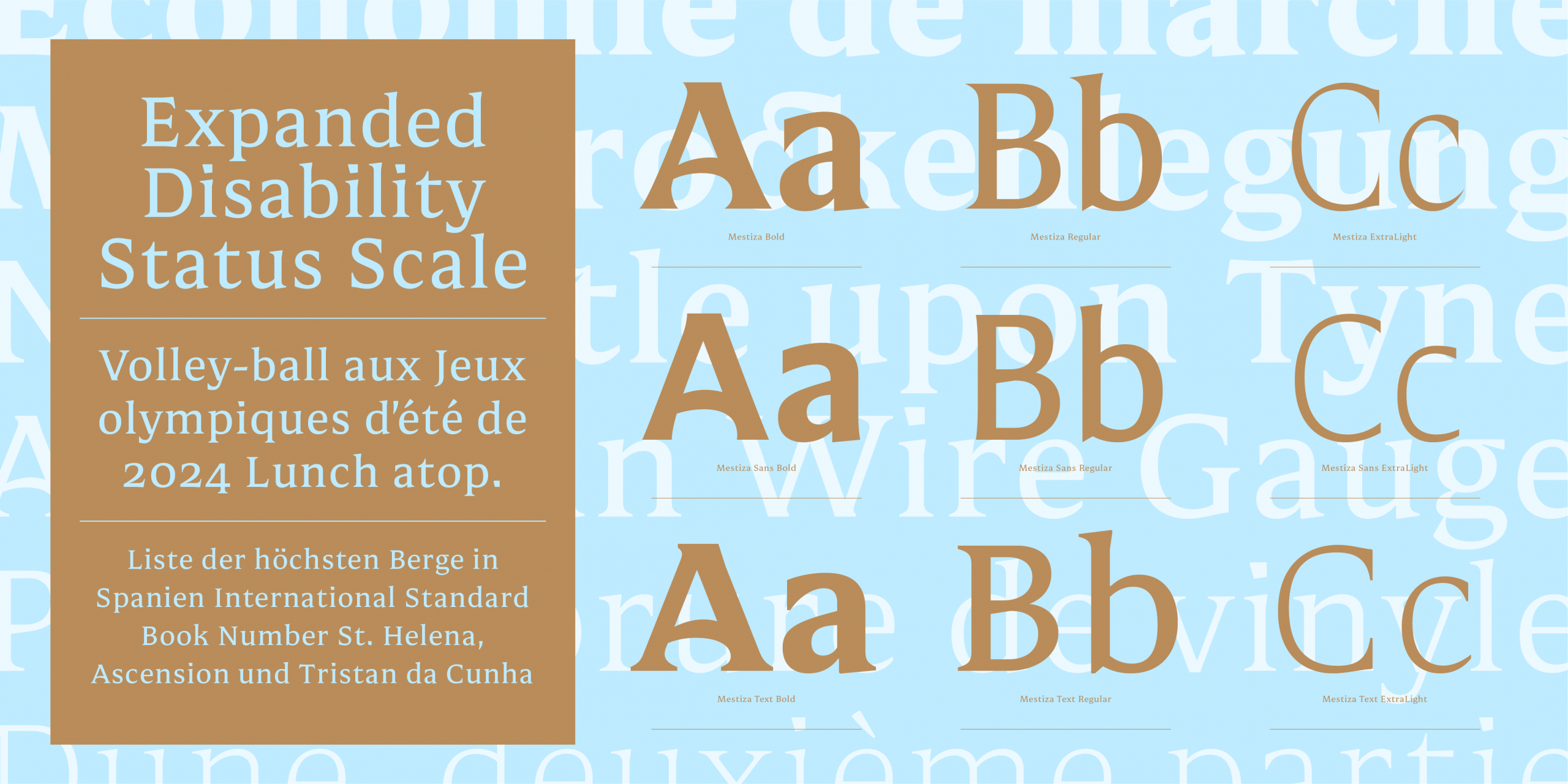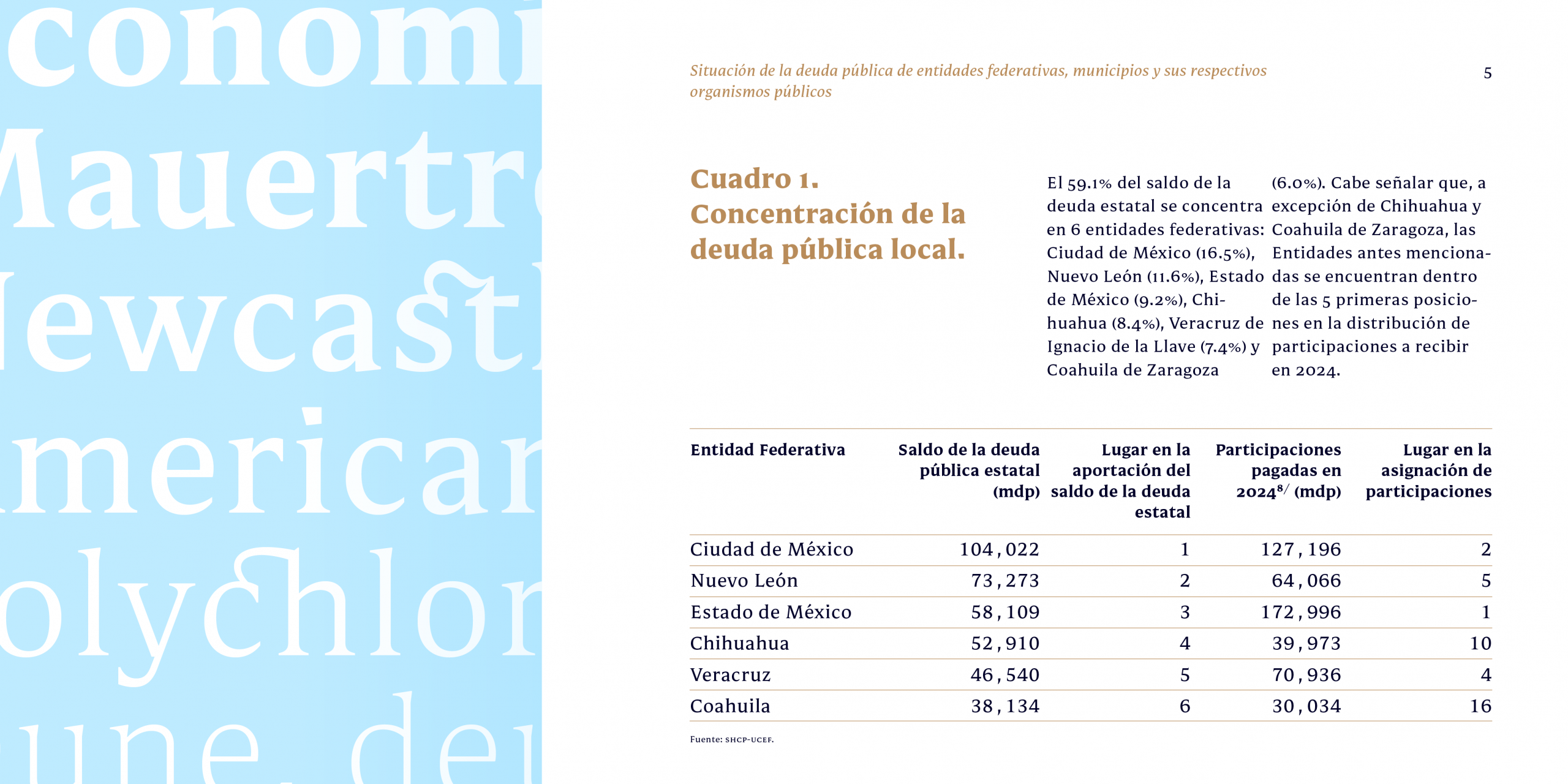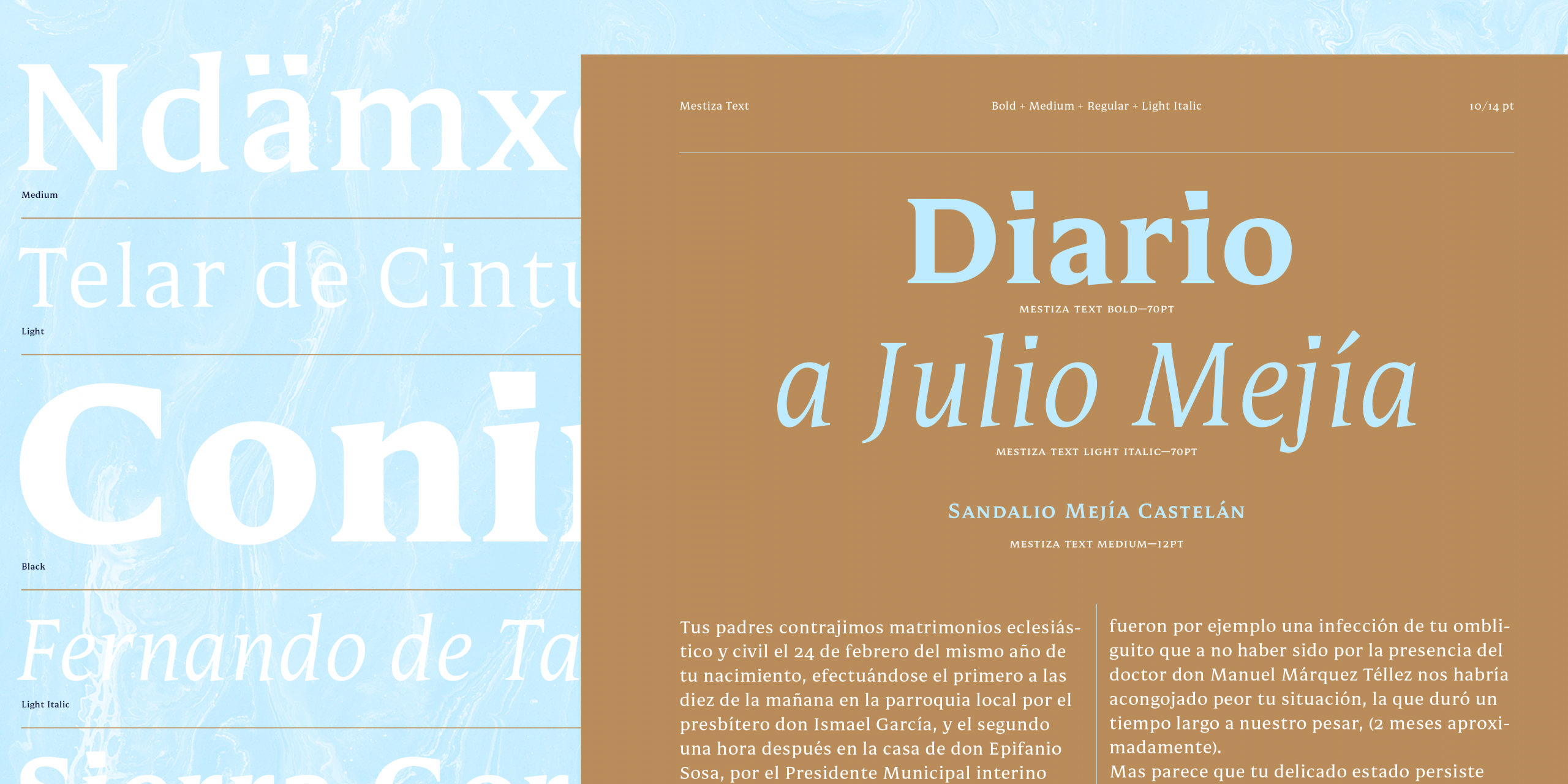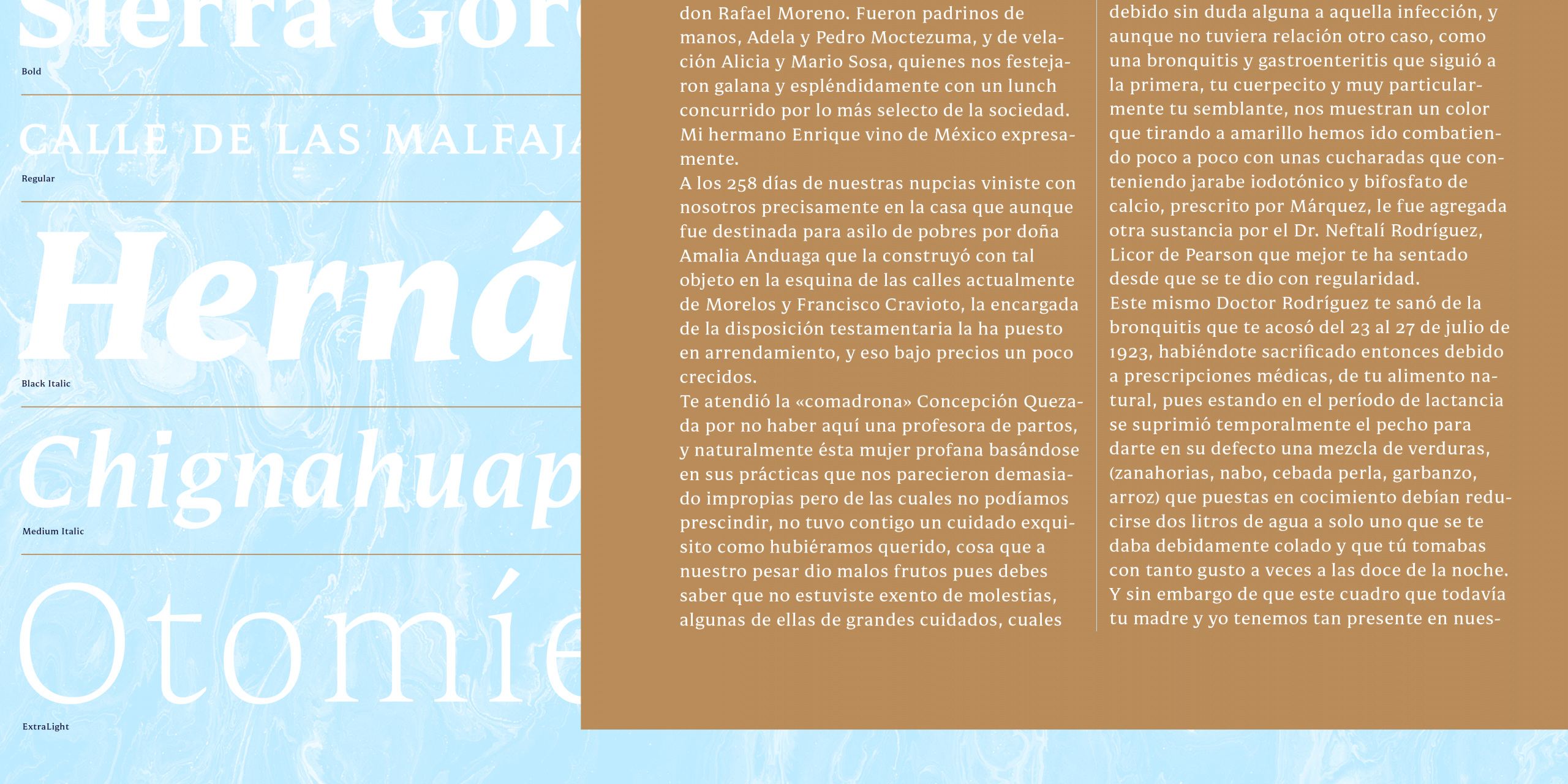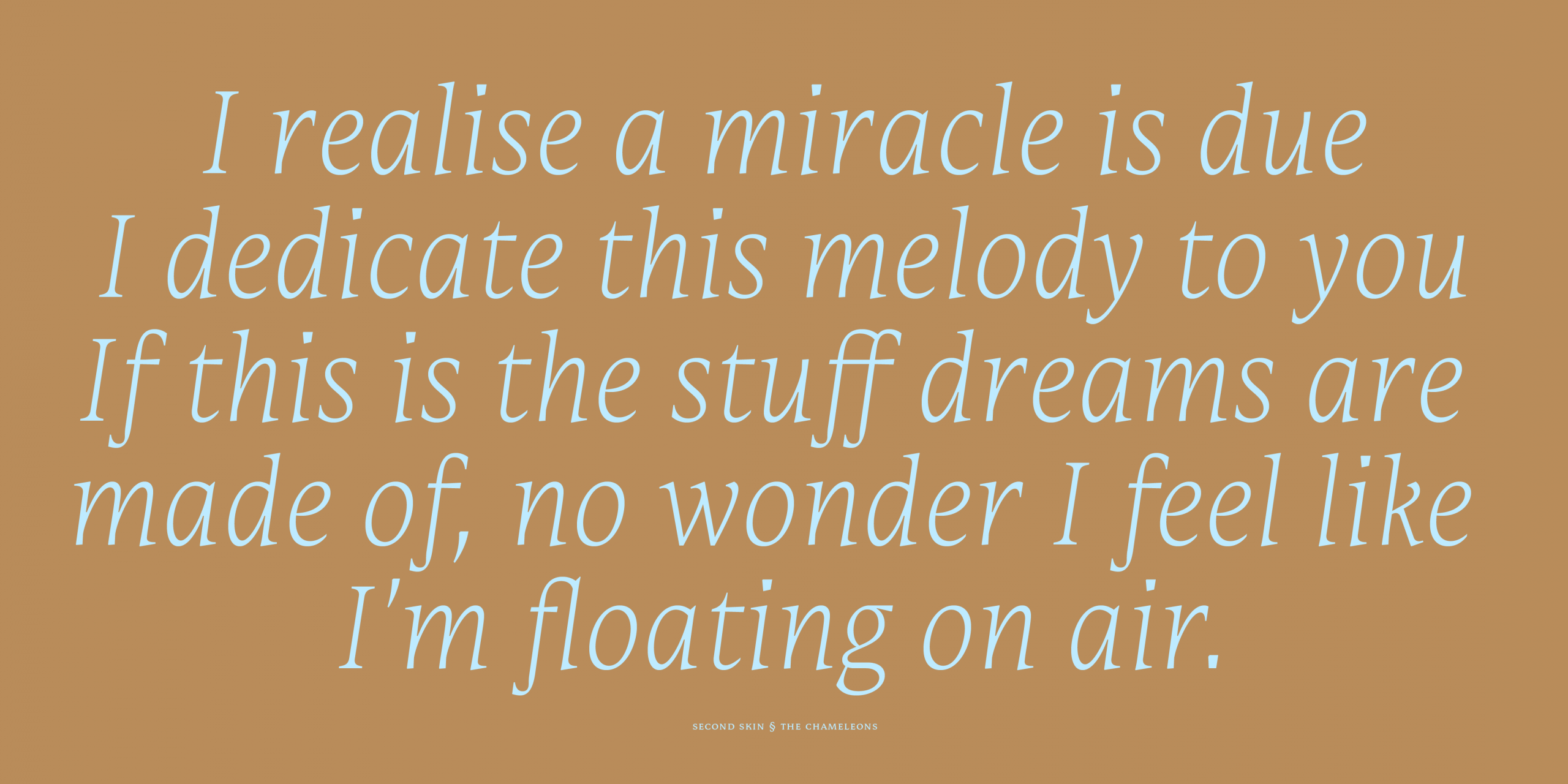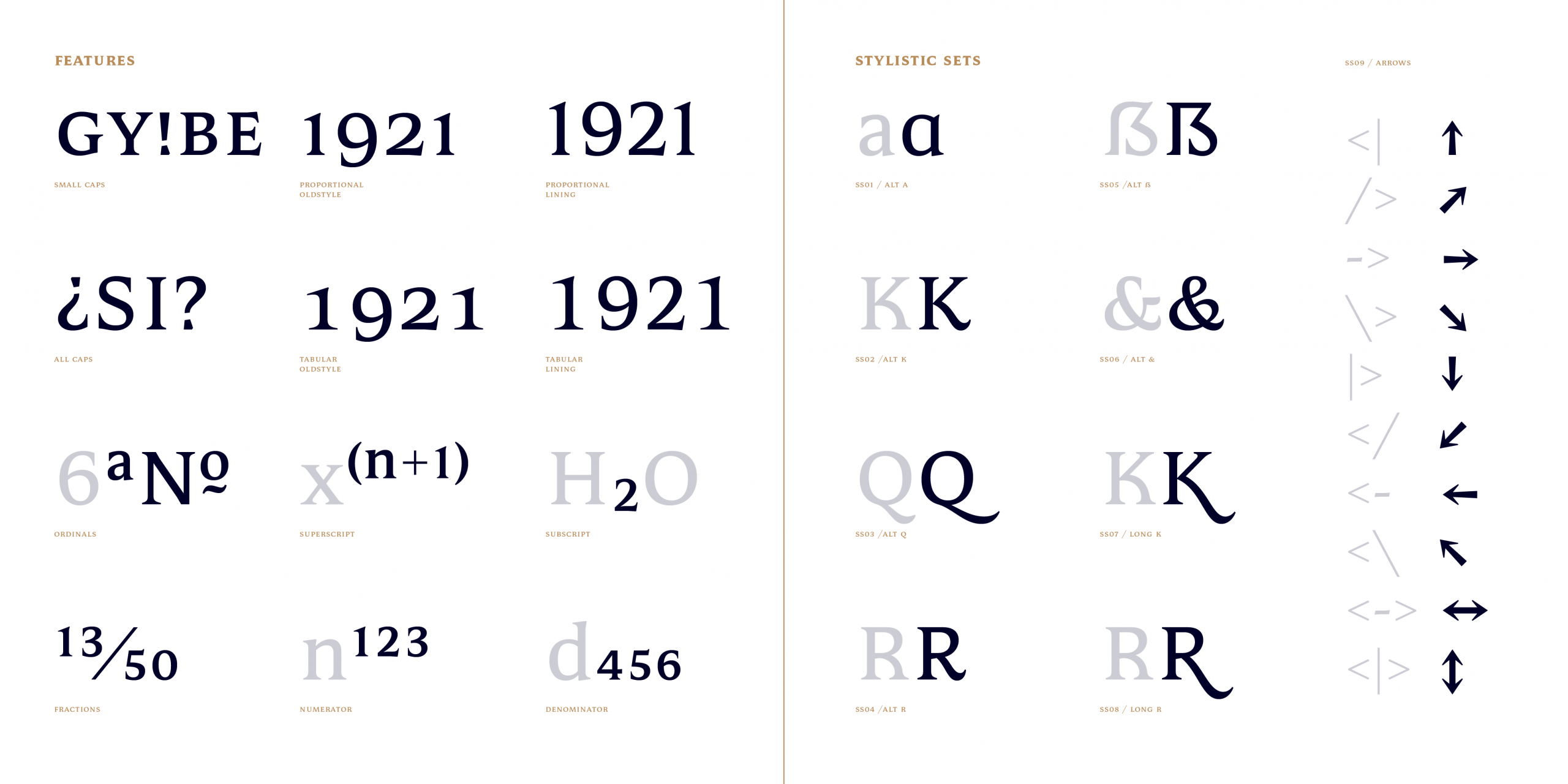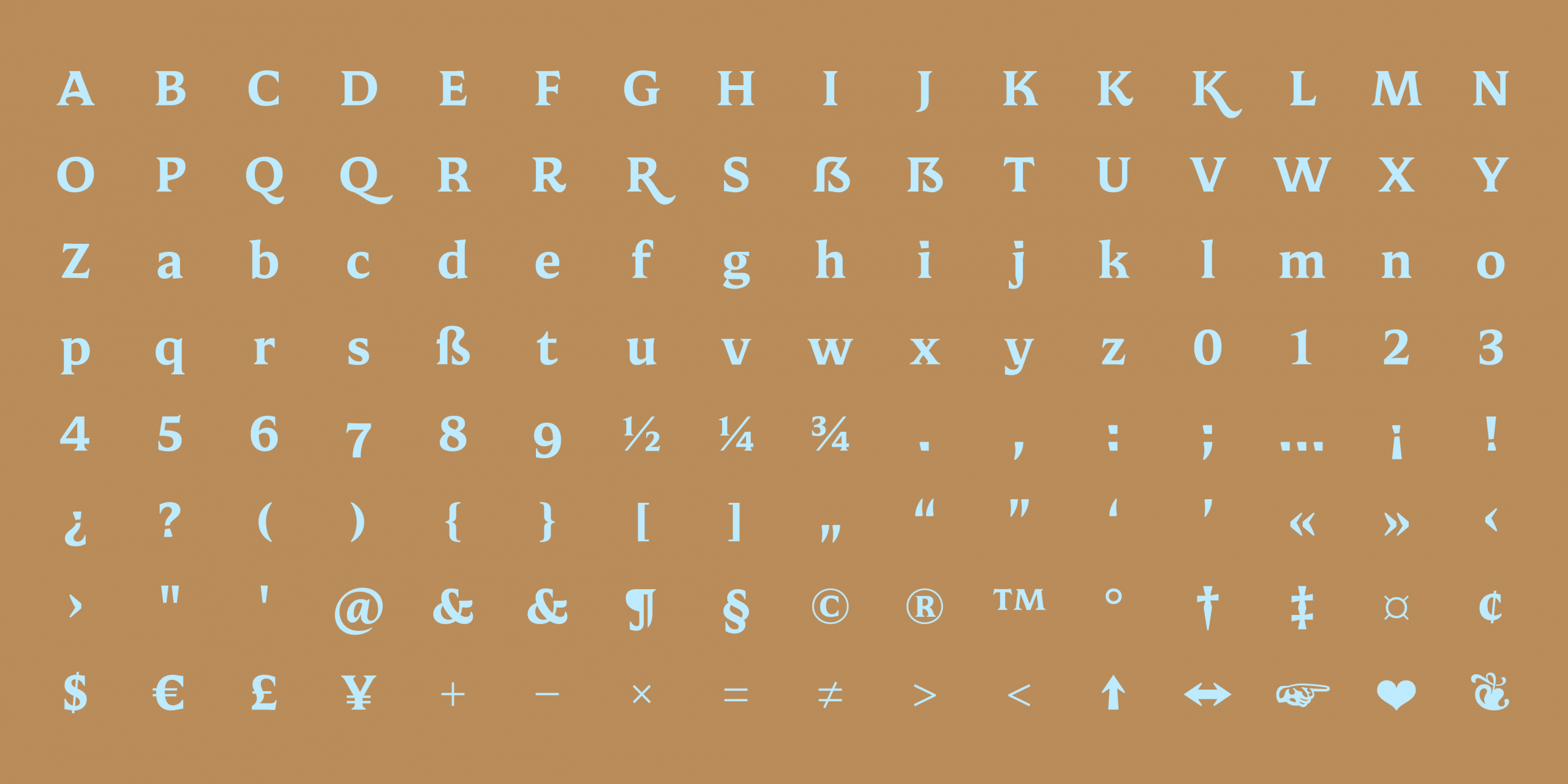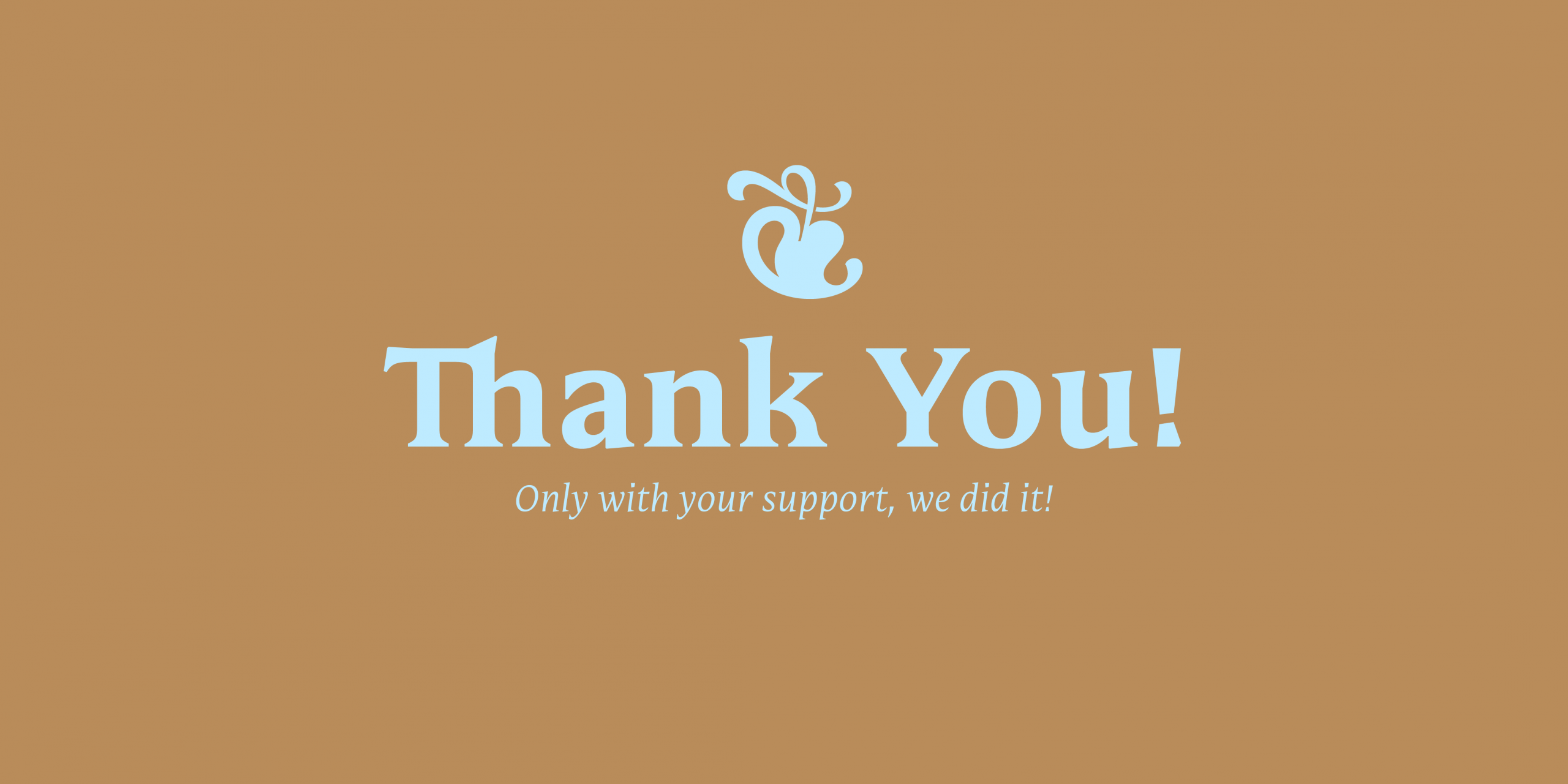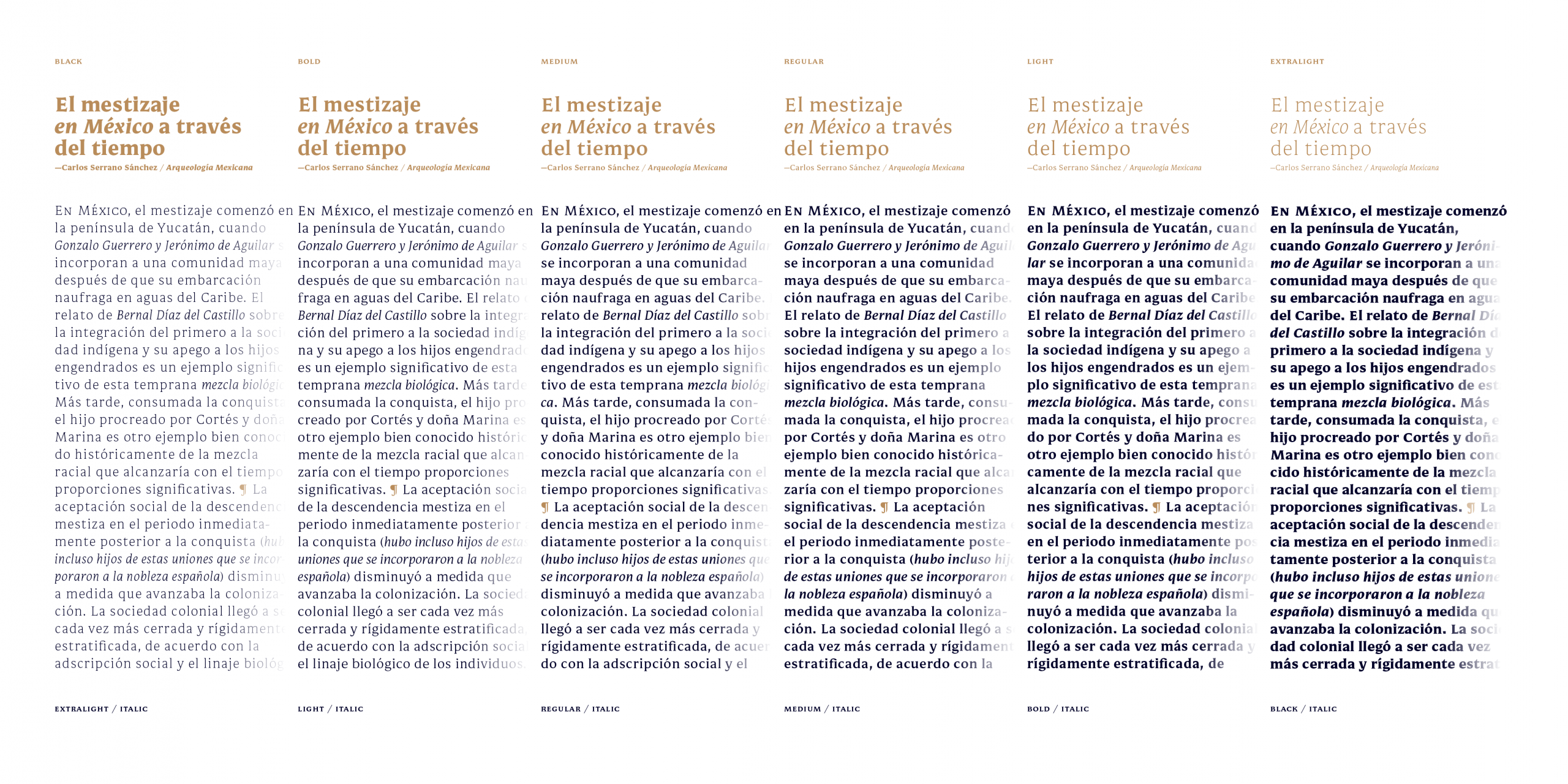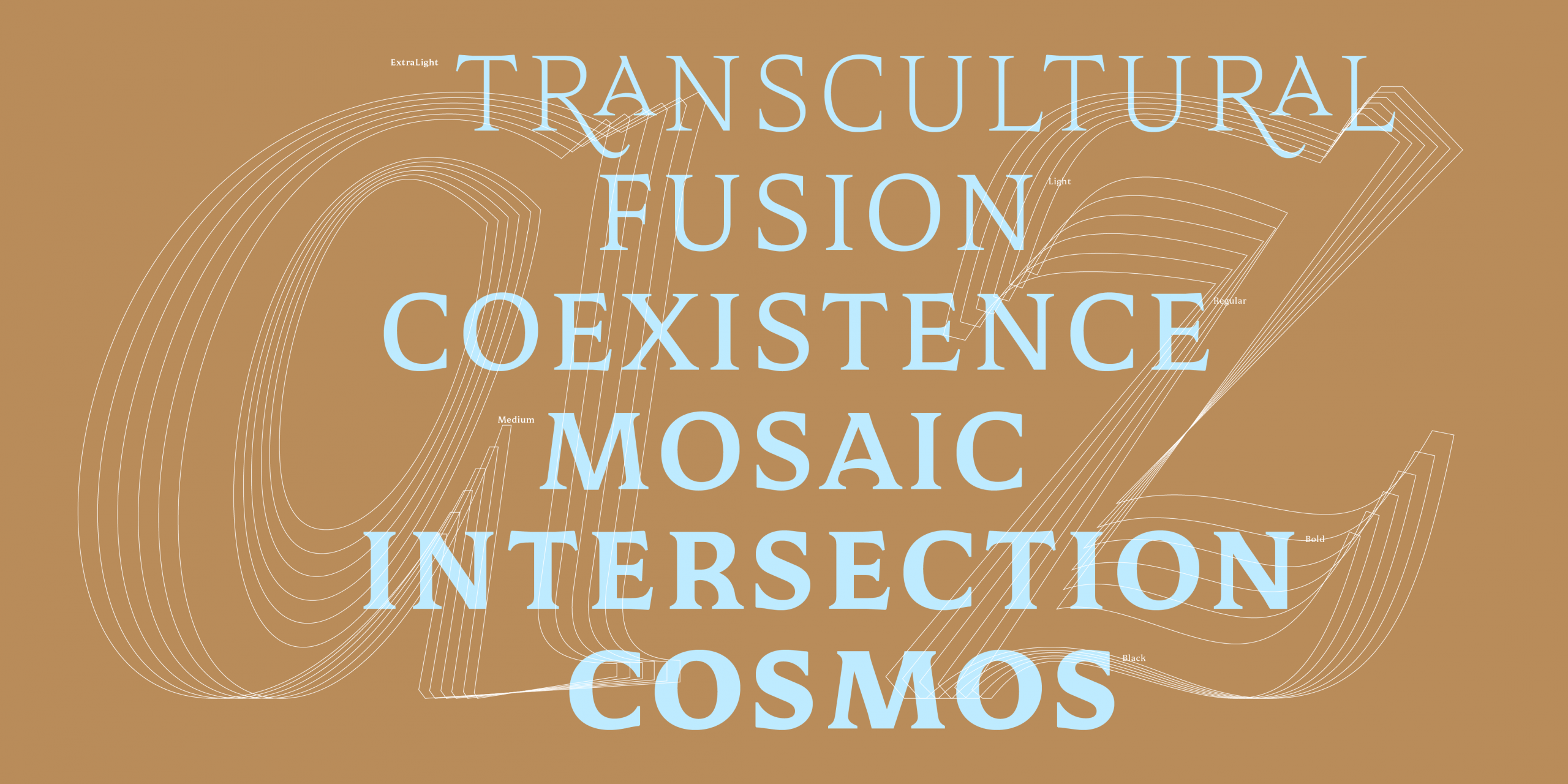
Mestiza Text completes the Mestiza system: a superfamily comprising Sans and Serif versions for large sizes, each with a unique personality, and now featuring the new Mestiza Text optical size, ideal for solid body text.
It has a large x-height, short descenders, and balanced width, ensuring excellent readability in both print and on screen. It features 900 characters covering more than 300 Latin-based languages and supports the composition of more complex texts, including lining and old-style tabular figures, superscripts and subscripts, small caps, fractions, and more.